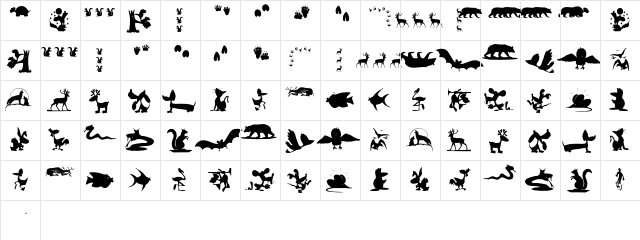
AnimalShadowsDrei Regular
Design Context for AnimalShadowsDrei Typeface
AnimalShadowsDrei brings ornamental detail and strong personality to headlines and identities, where visual impact matters more than quiet functionality.
Font Pairing: Pair with a clean neutral sans-serif for body copy to let AnimalShadowsDrei's character lead without overwhelming the composition.
Pro Tip: Treat AnimalShadowsDrei as the centrepiece of your typographic hierarchy. One strong heading set in a decorative face can carry an entire layout.